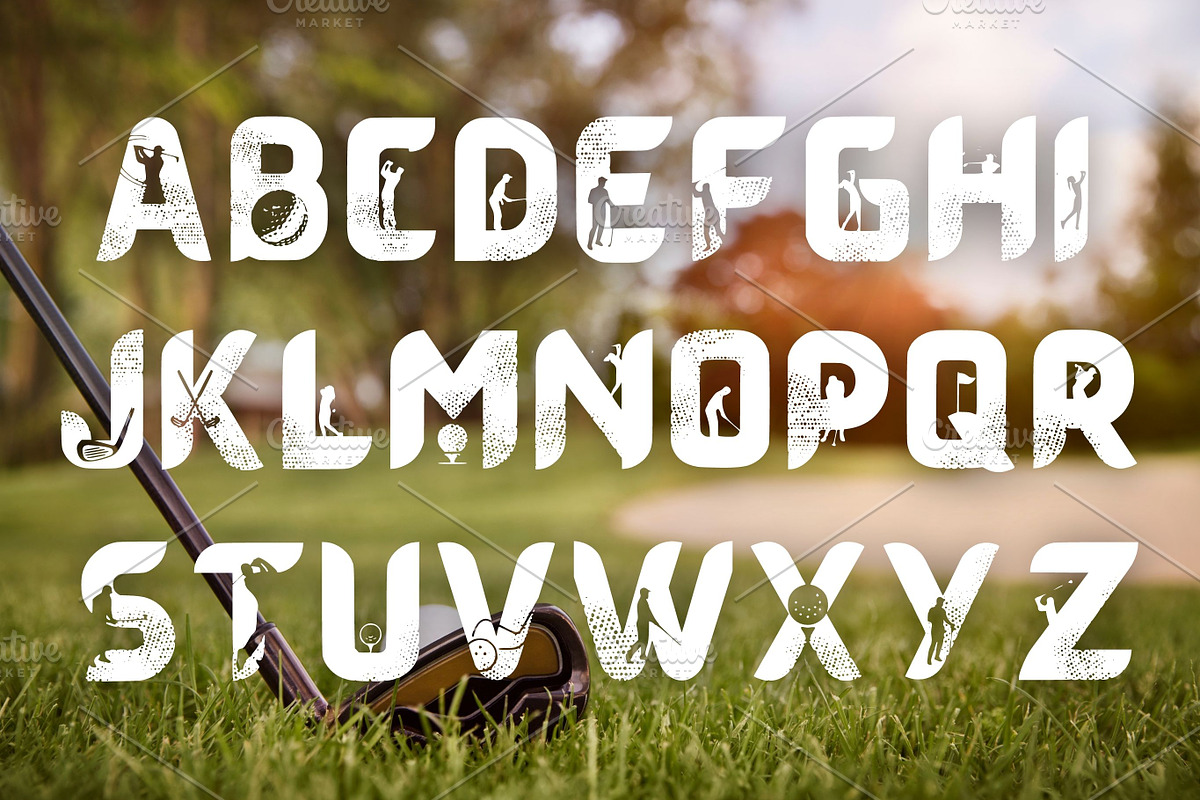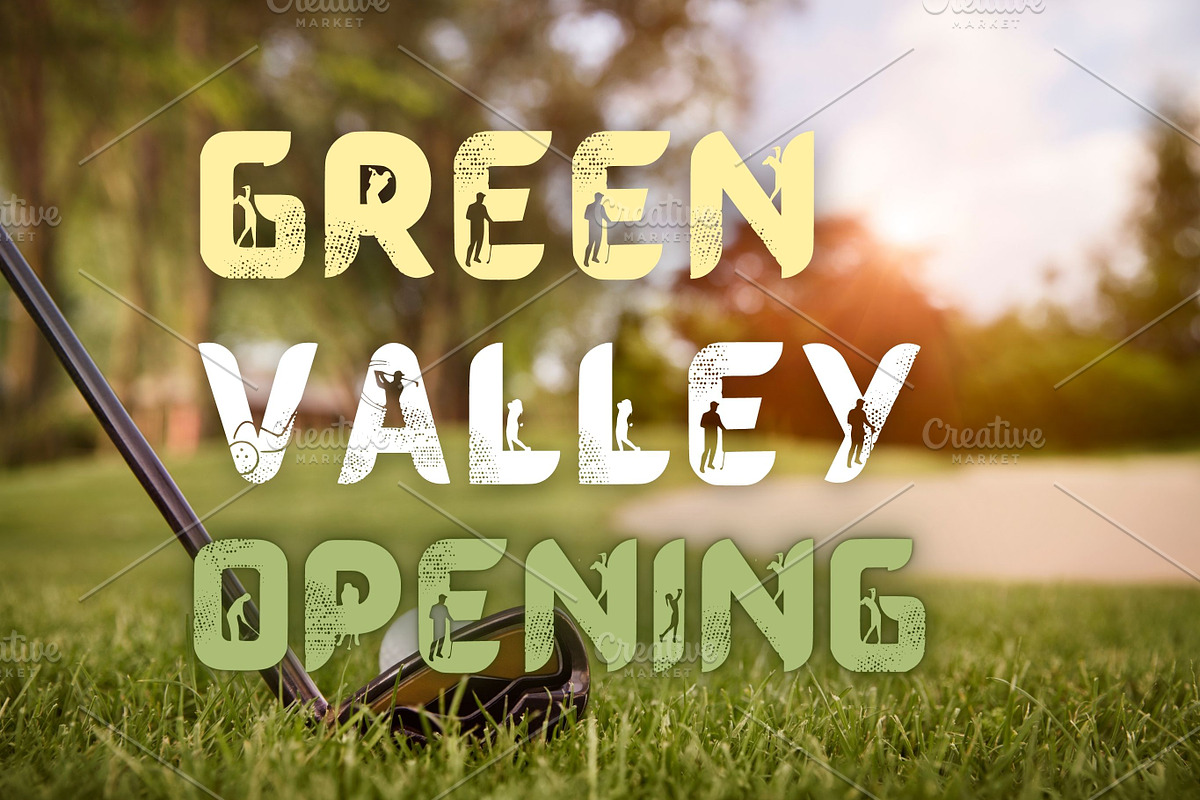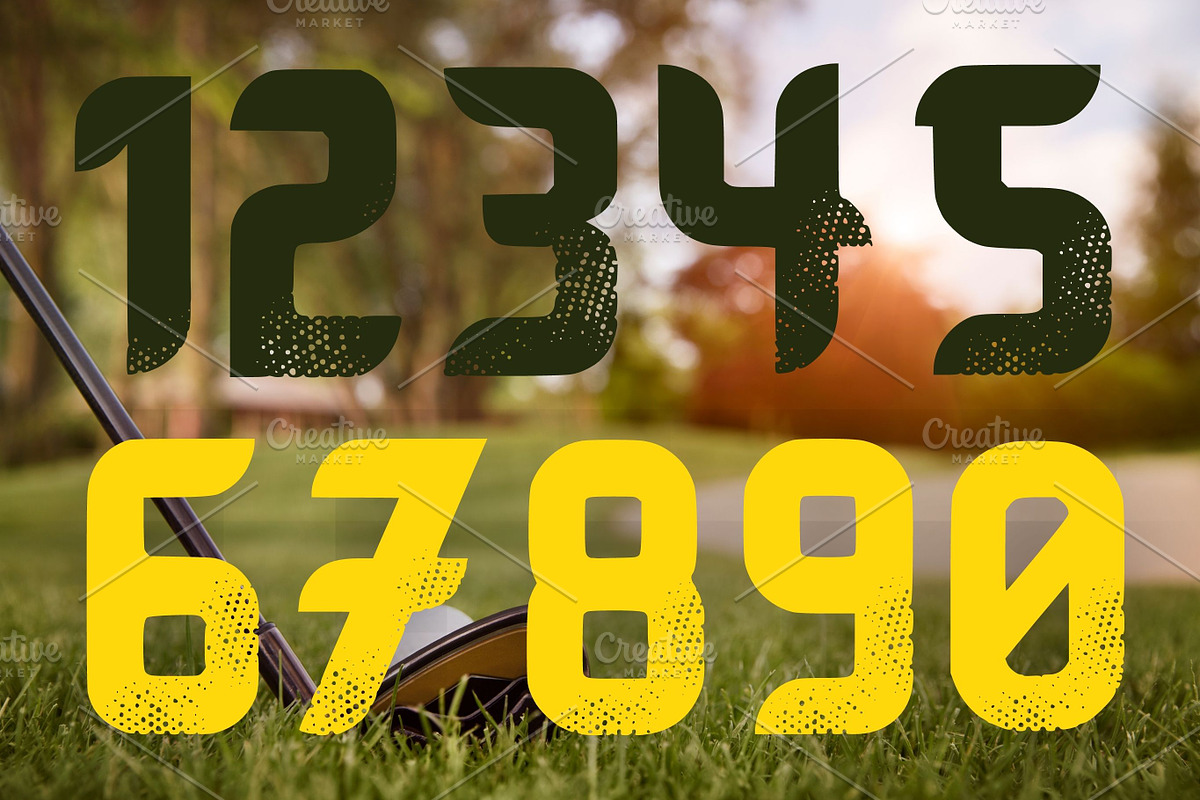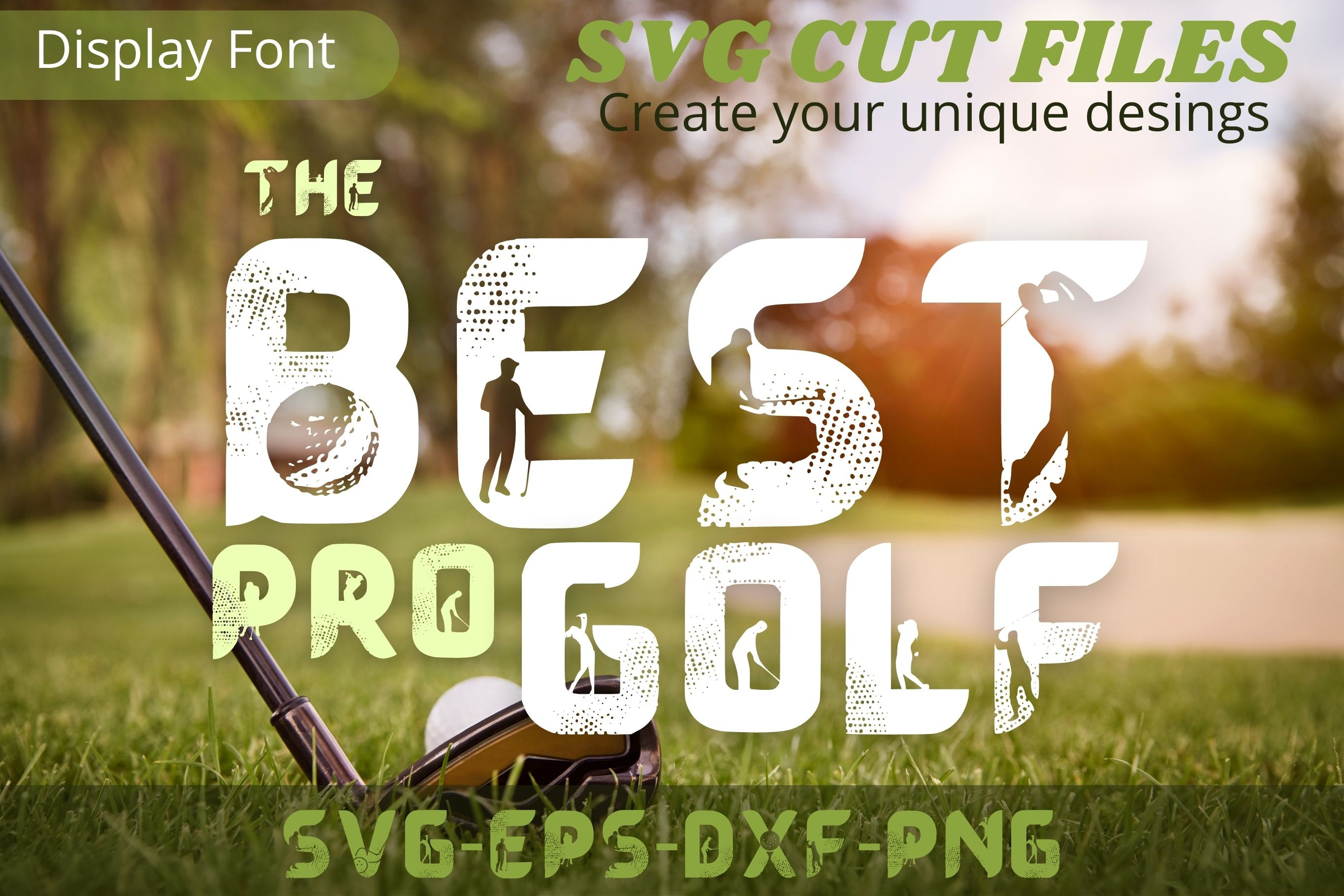
The Best Pro Golf Font, SVG cut file
Font is a cool, useful and unique decorative font. You can use it for various projects, such as blog posts, logos, branding, ads, invitations, greeting cards, planners, photo albums, decorations, and much more. Add it to any of your designs, and enjoy the results!